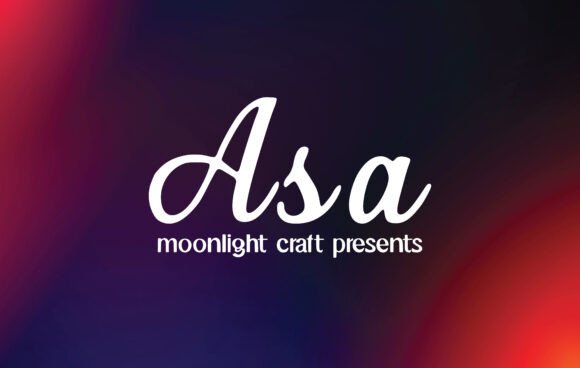
The Elegant Asa Font: A Designer’s New Best Friend
I’ll never forget the time I was working on a wedding invitation project, and my client asked for a font that exuded elegance and sophistication. I scoured the internet, tried out countless fonts, but nothing seemed quite right. That was until I stumbled upon the beautiful Asa font. With its smooth, flowing strokes and stylish handwritten feel, it was love at first sight! ✨ In this article, I’ll share my experience with the Asa font, its features, and how to make the most of it in your design projects.
An Honest Review of Asa Font
What I Love About Asa Font
- ✨ Elegant and refined script font perfect for wedding invitations, personal branding, and feminine logos
- ✅ Smooth flowing strokes and a stylish handwritten feel that adds a personal touch to any design project
- 🎉 Highly versatile and can be used for social media quotes, greeting cards, and more
- 👍 Easy to read and understand, even in smaller sizes
While Asa font is a stunning addition to any design project, there are a few things to keep in mind: 🤔
- ⚠️ As with any script font, it may not be the best choice for body text or large blocks of text
- ⚠️ Some of the more intricate details may get lost when used in very small sizes
A Practical Guide to Using Asa Font
The Story Behind Asa Font
The Asa font was designed with elegance and sophistication in mind. Its creator wanted to craft a font that would be perfect for wedding invitations, personal branding, and feminine logos. With its smooth flowing strokes and stylish handwritten feel, Asa font is sure to add a touch of class to any design project.
Q: What is the Asa font best used for?
A: The Asa font is best used for wedding invitations, personal branding, feminine logos, social media quotes, and greeting cards.
Q: Can I use the Asa font for body text?
A: While the Asa font is beautiful, it’s not recommended for body text or large blocks of text. It’s best used for headings or titles.
Q: Is the Asa font available in different styles?
A: Yes, the Asa font comes with OpenType features, including glyphs and stylistic alternates, which allow you to customize the font to suit your design needs.